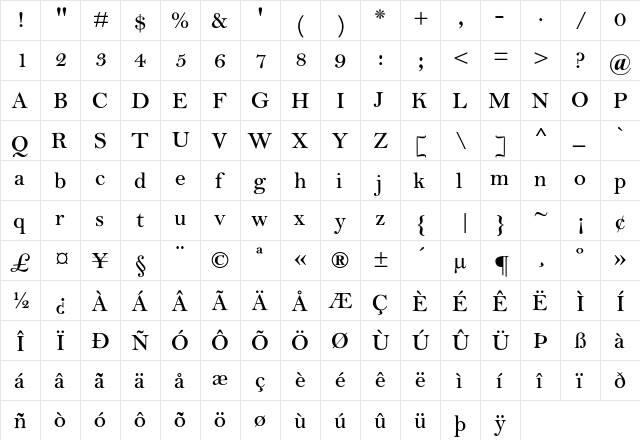
MBell-SemiBold Regular
Design Context for MBell-SemiBold Typeface
MBell-SemiBold is a composed and adaptable typeface that performs quietly and consistently across a wide range of design contexts. Its bold stroke weight gives it real presence on the page.
Pro Tip: Use MBell-SemiBold in both headline and body roles to test its range before committing to a single application.